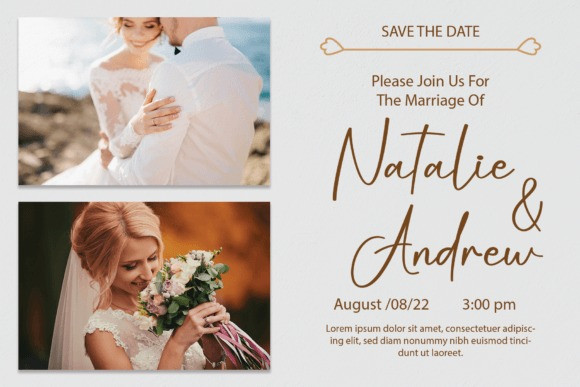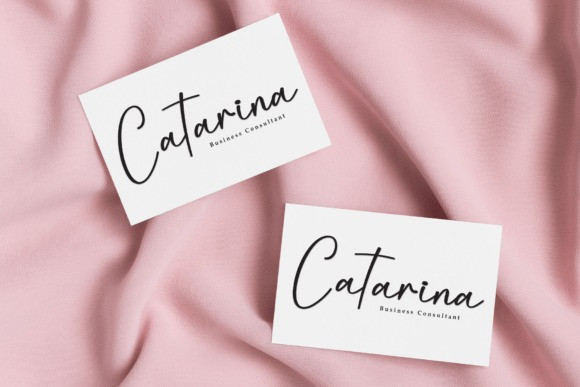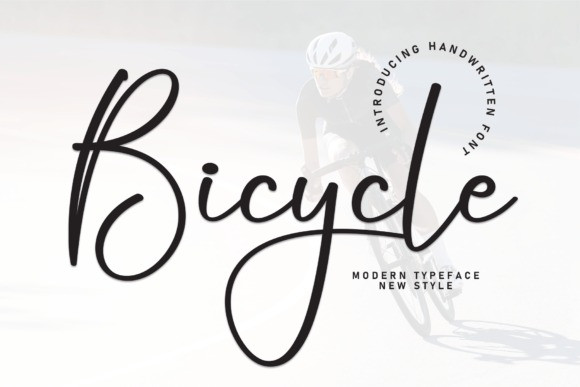
Bicycle Script Font
Bicycle Script Font is a friendly handwritten font that adds a personal touch to your projects. With its casual and approachable style, it’s perfect for creating a warm and inviting atmosphere. Use Bicycle for a variety of purposes, from notes and invitations to posters and more. Its simple charm makes it easy to read and adds a touch of personality to any text. Pedal into creativity with the Bicycle font!